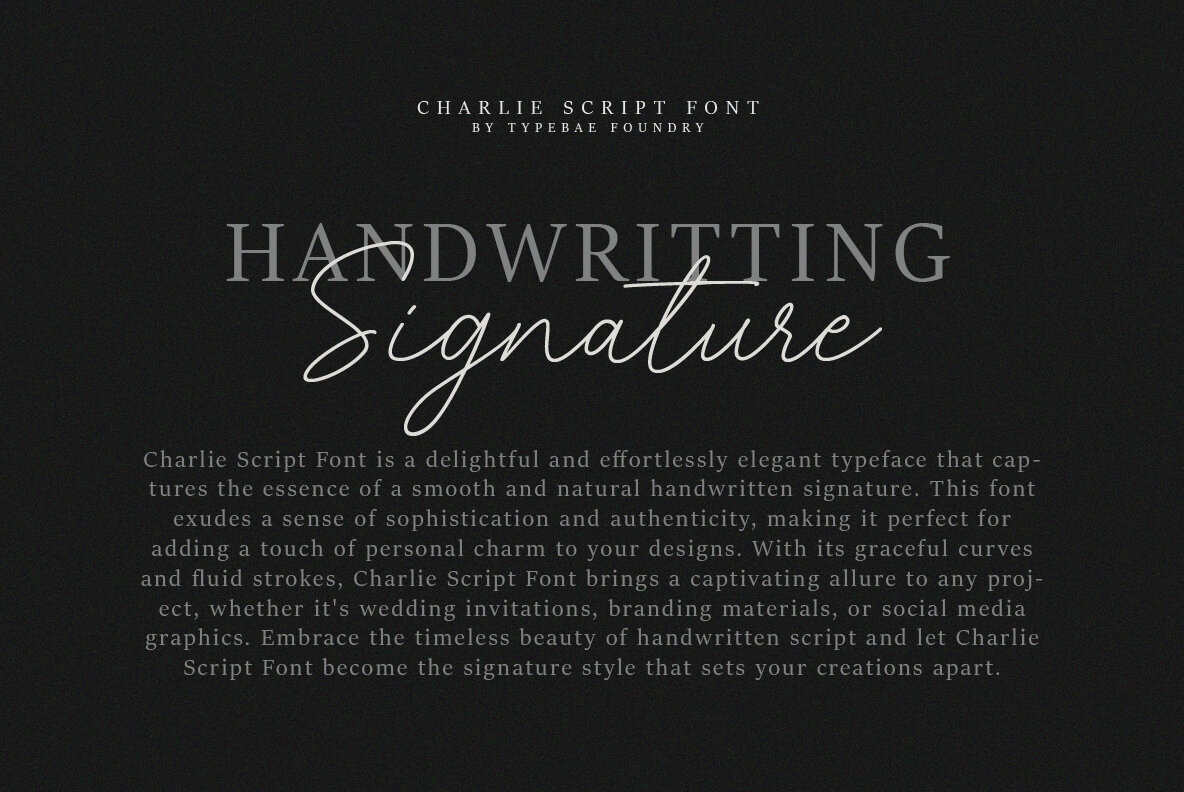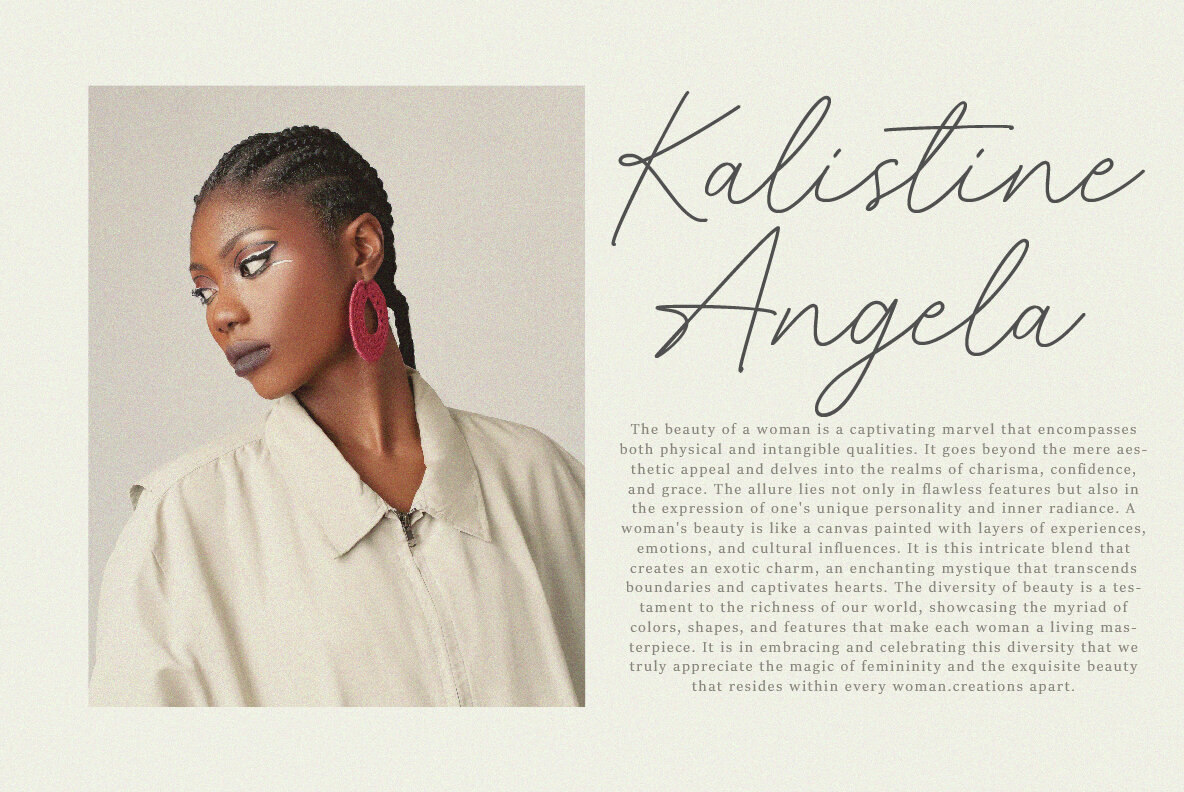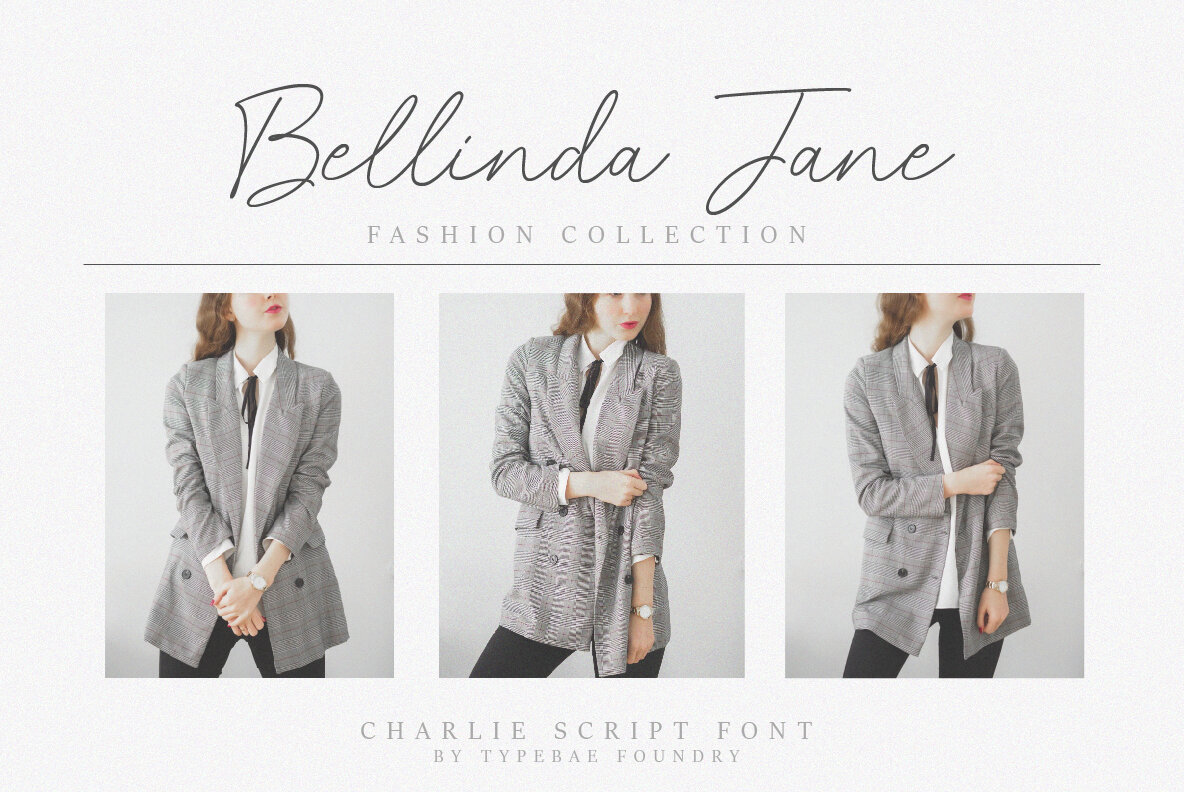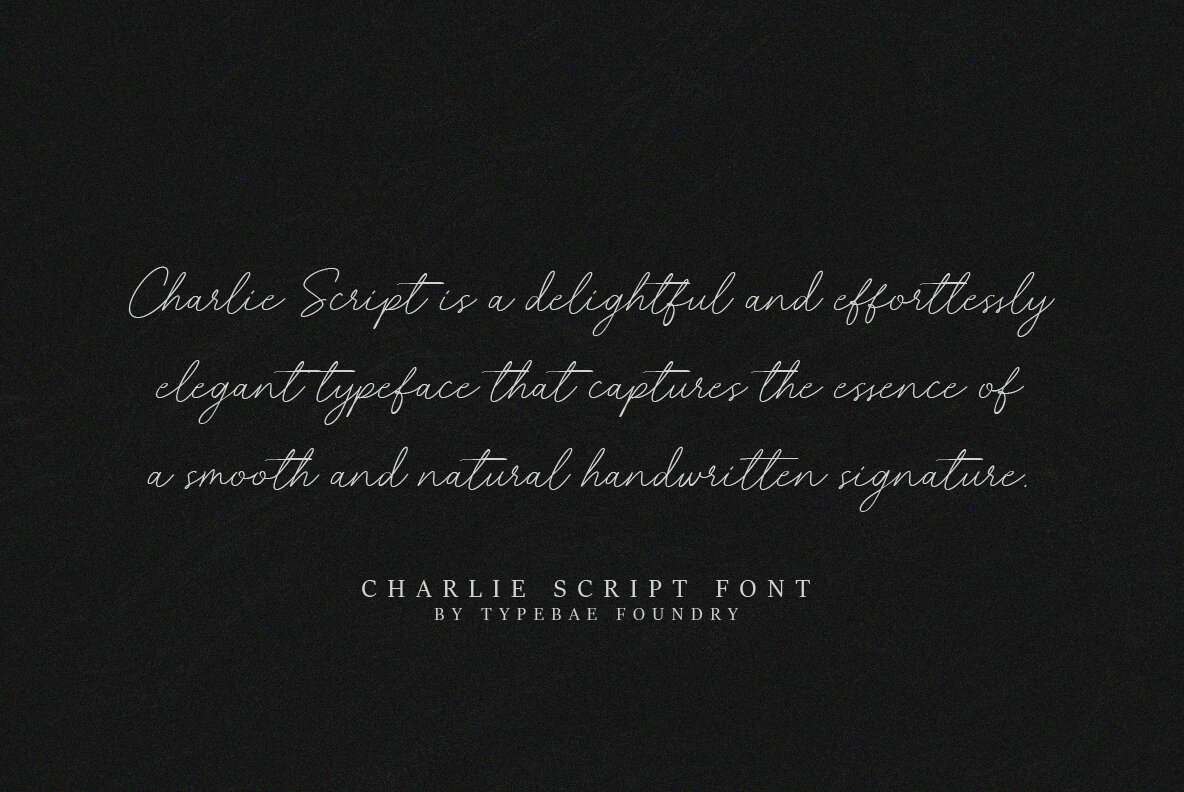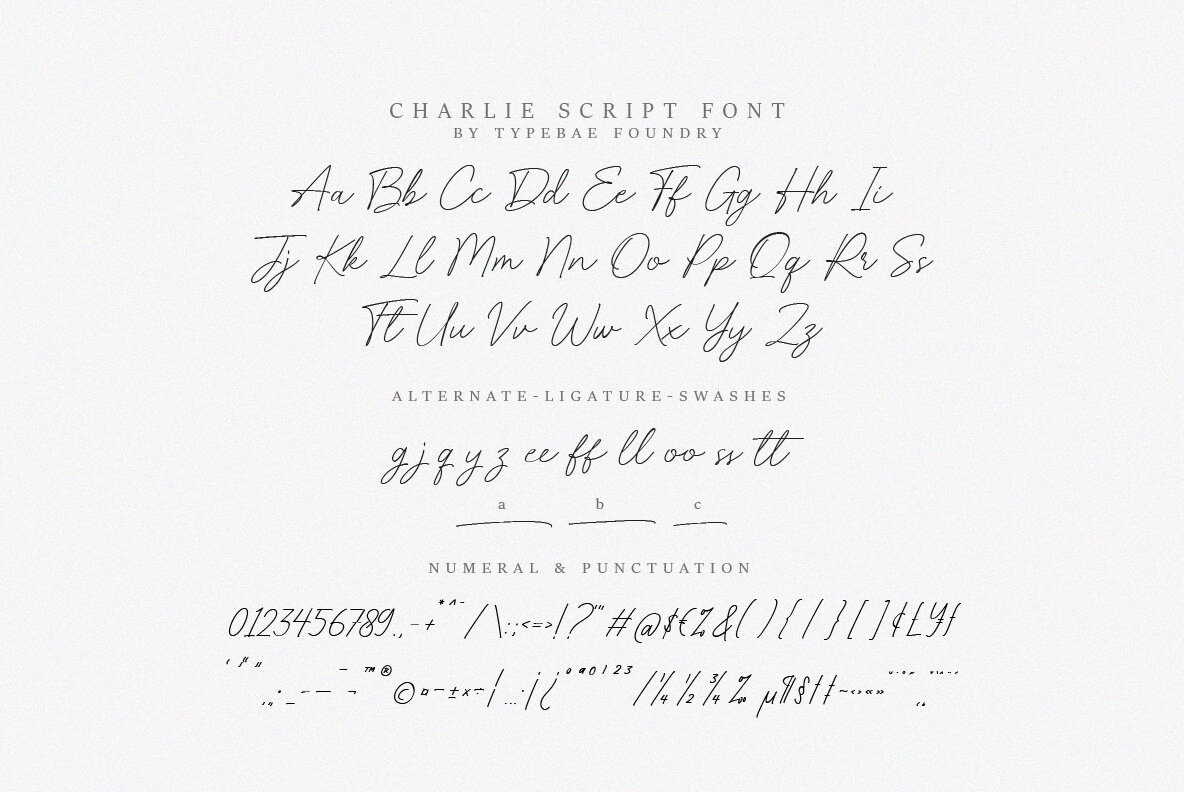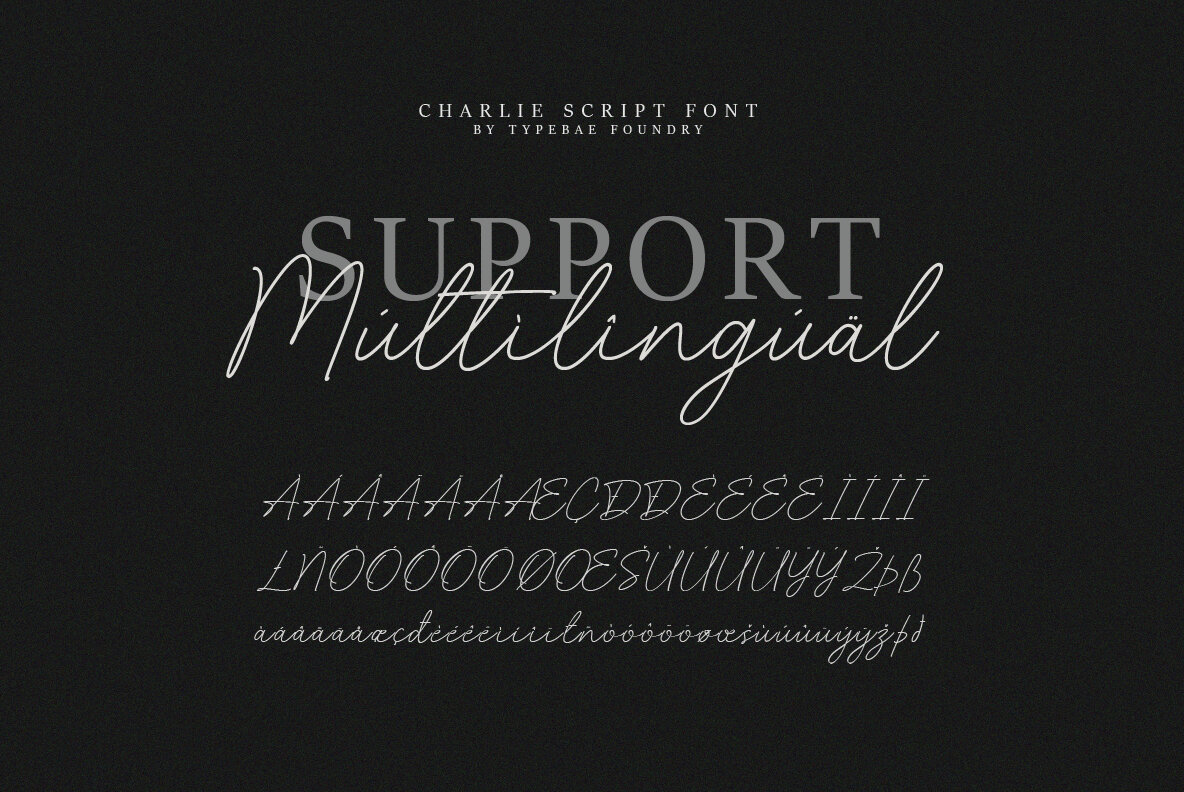
Charlie Script Font
Charlie Script
Charlie Script is an enchanting typeface that embodies the fluid grace of a natural handwritten signature. With its sophisticated yet authentic aesthetic, this font is ideal for bringing a touch of personal charm to any design. Discover the timeless beauty of handwritten script with Charlie Script, the perfect choice for setting your creative projects apart. If you have any questions about our fonts, feel free to contact us.Charlie Script: Effortlessly Elegant Handwritten Typeface